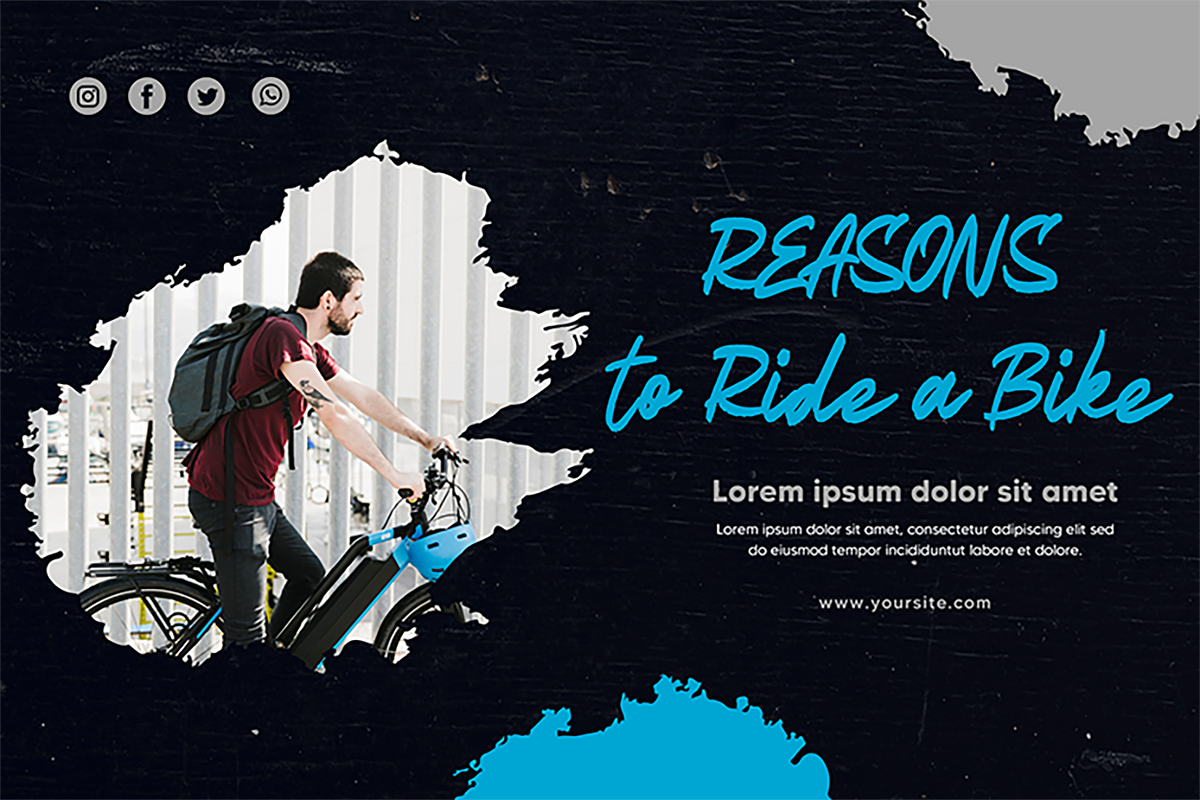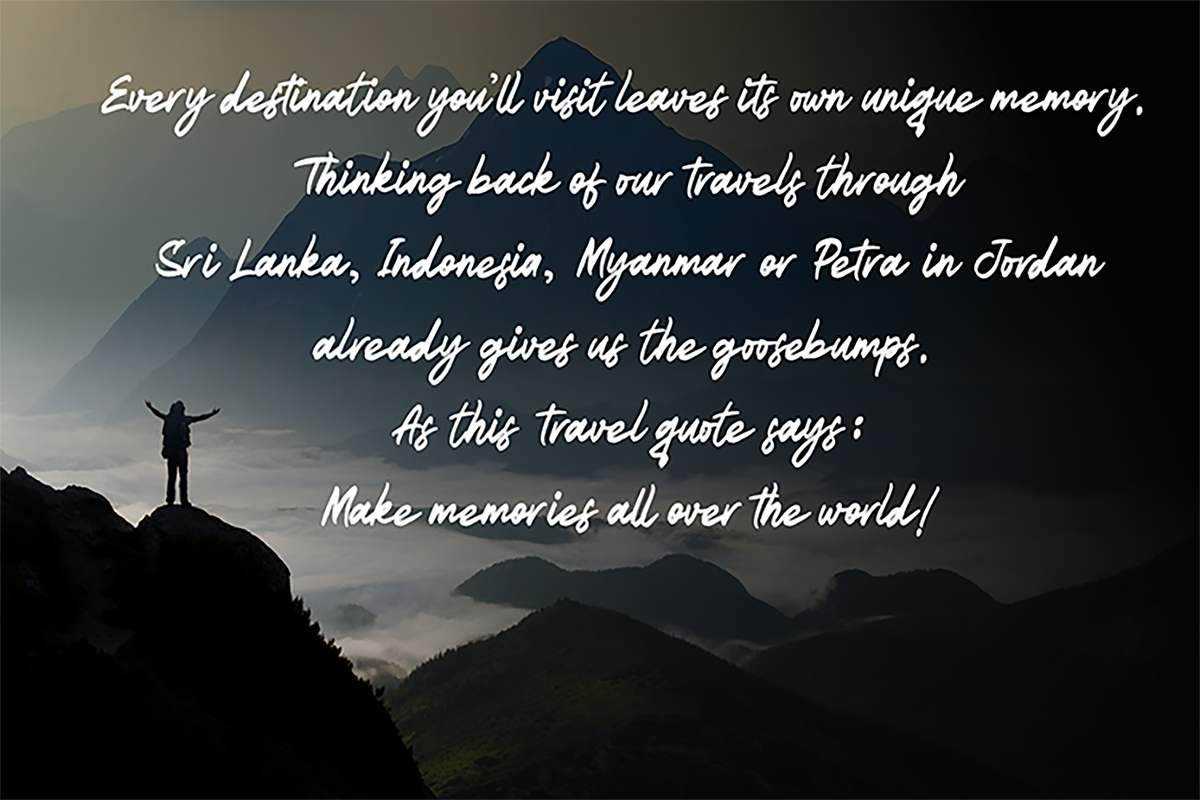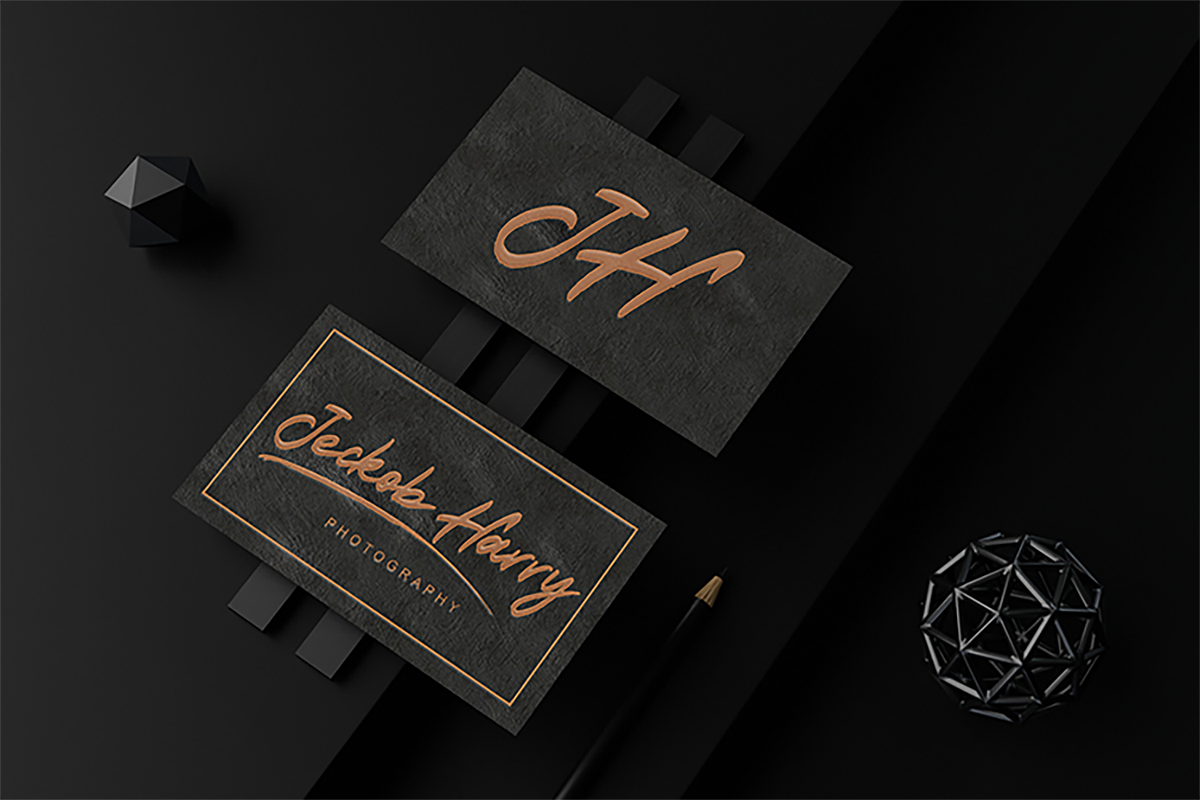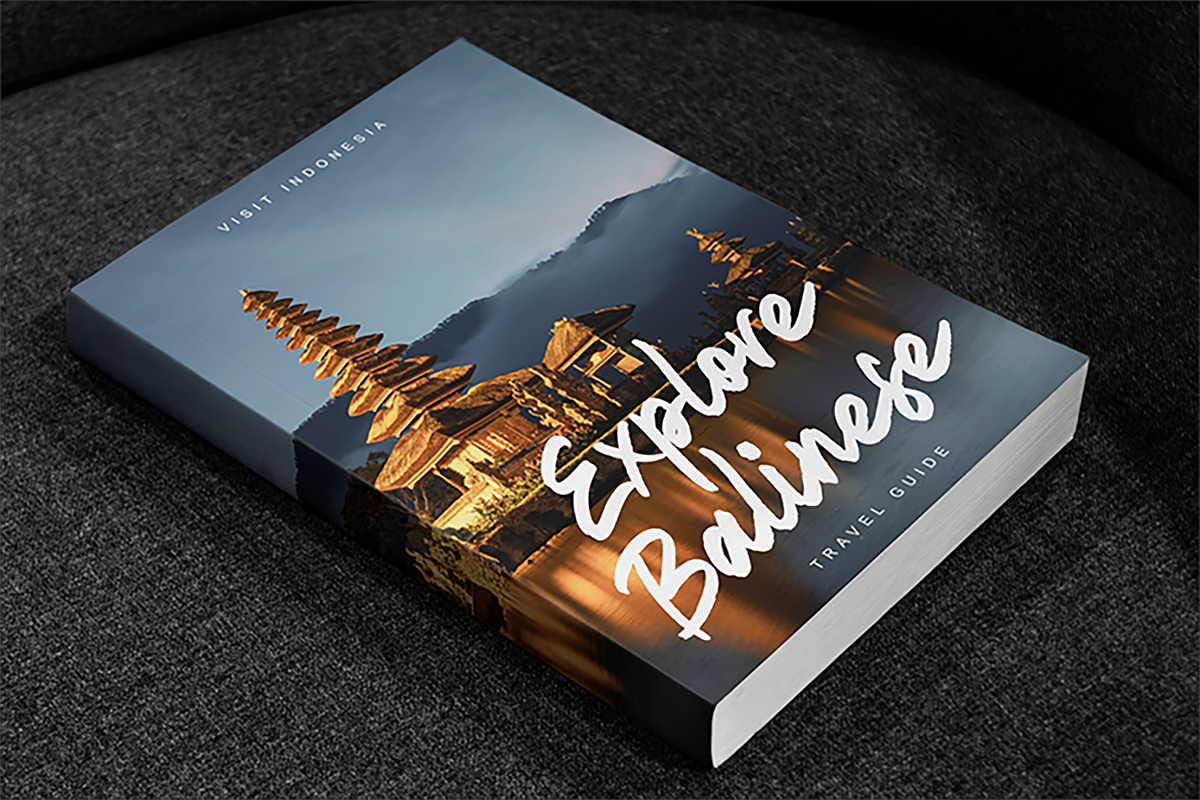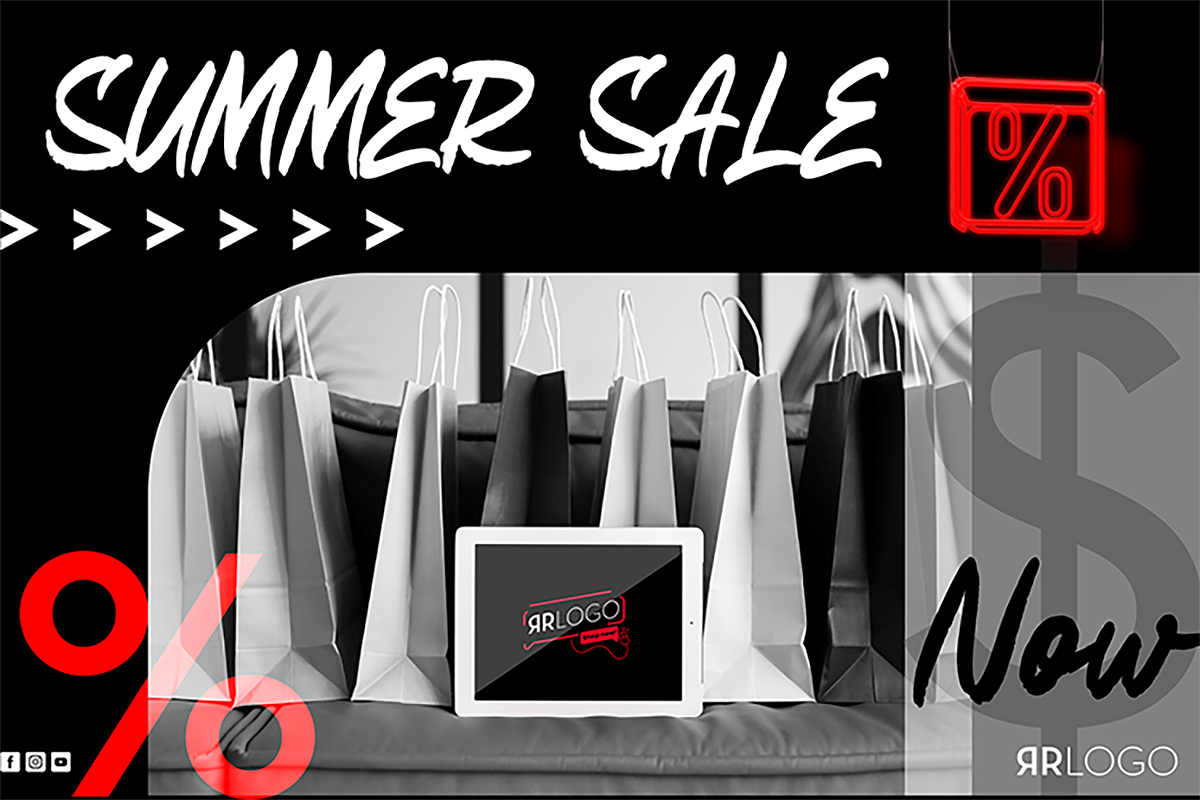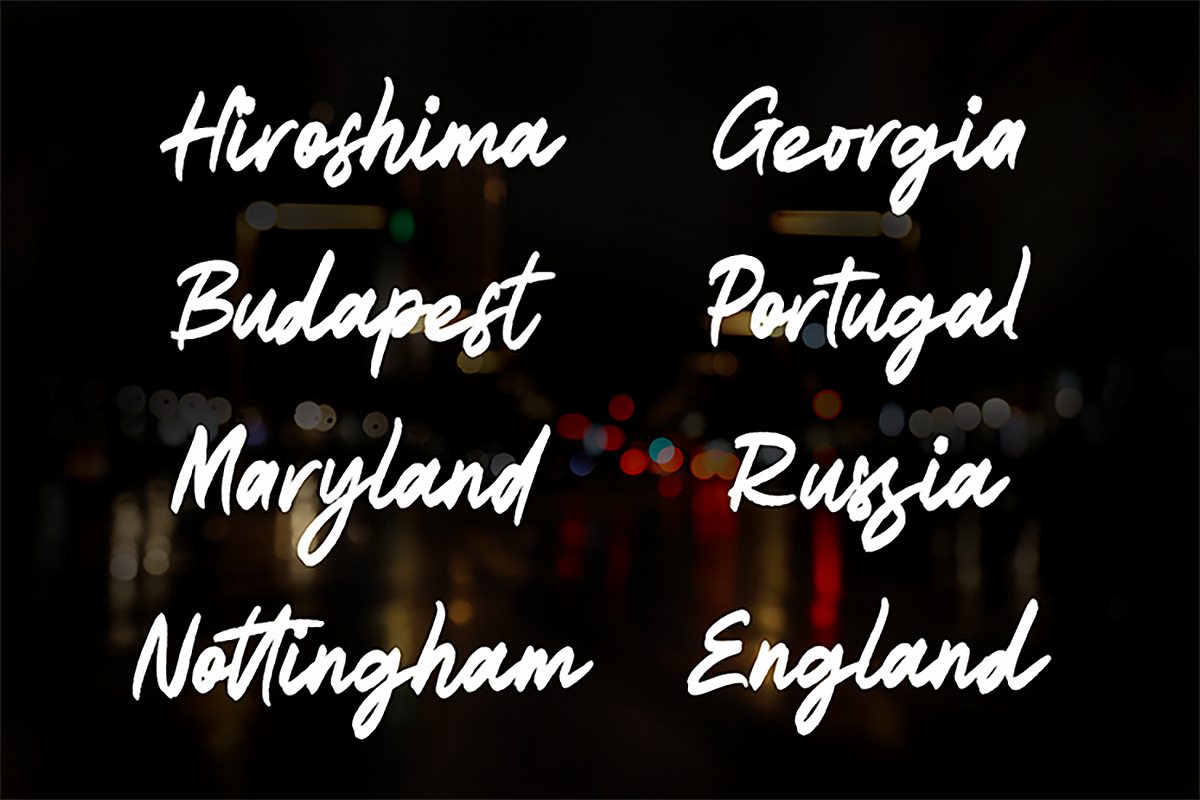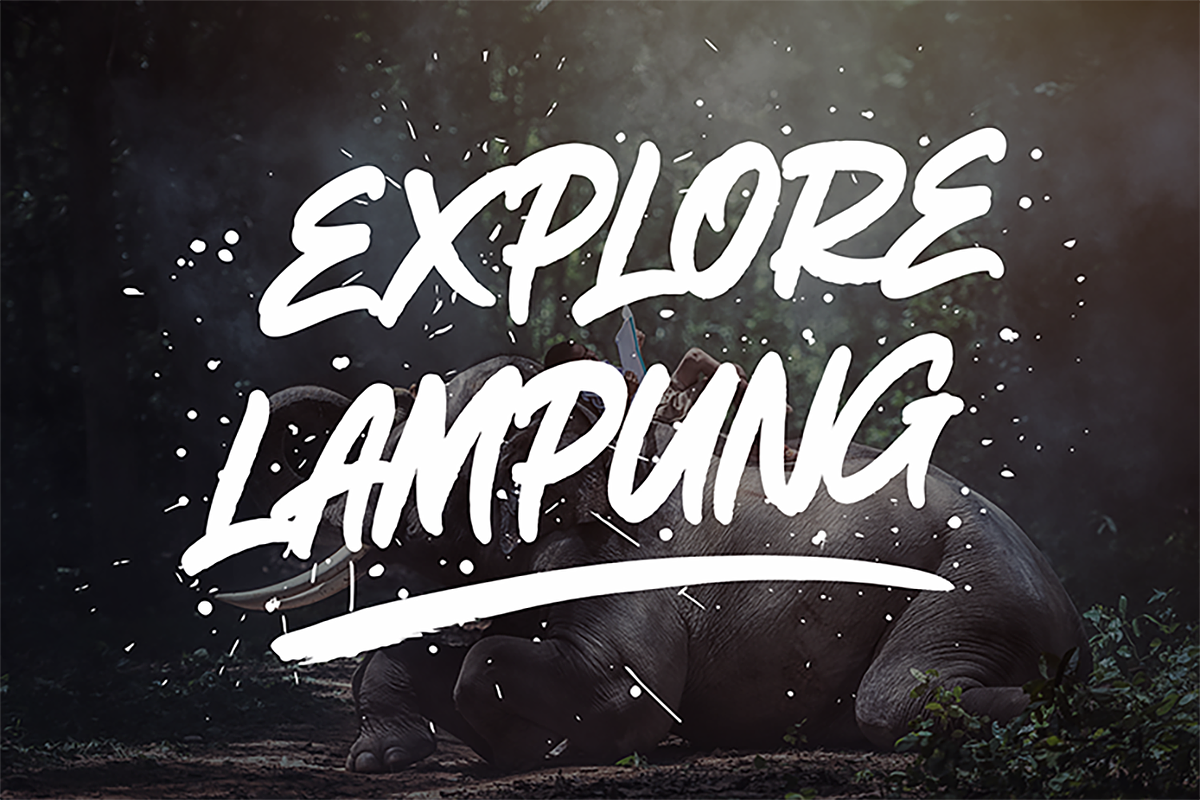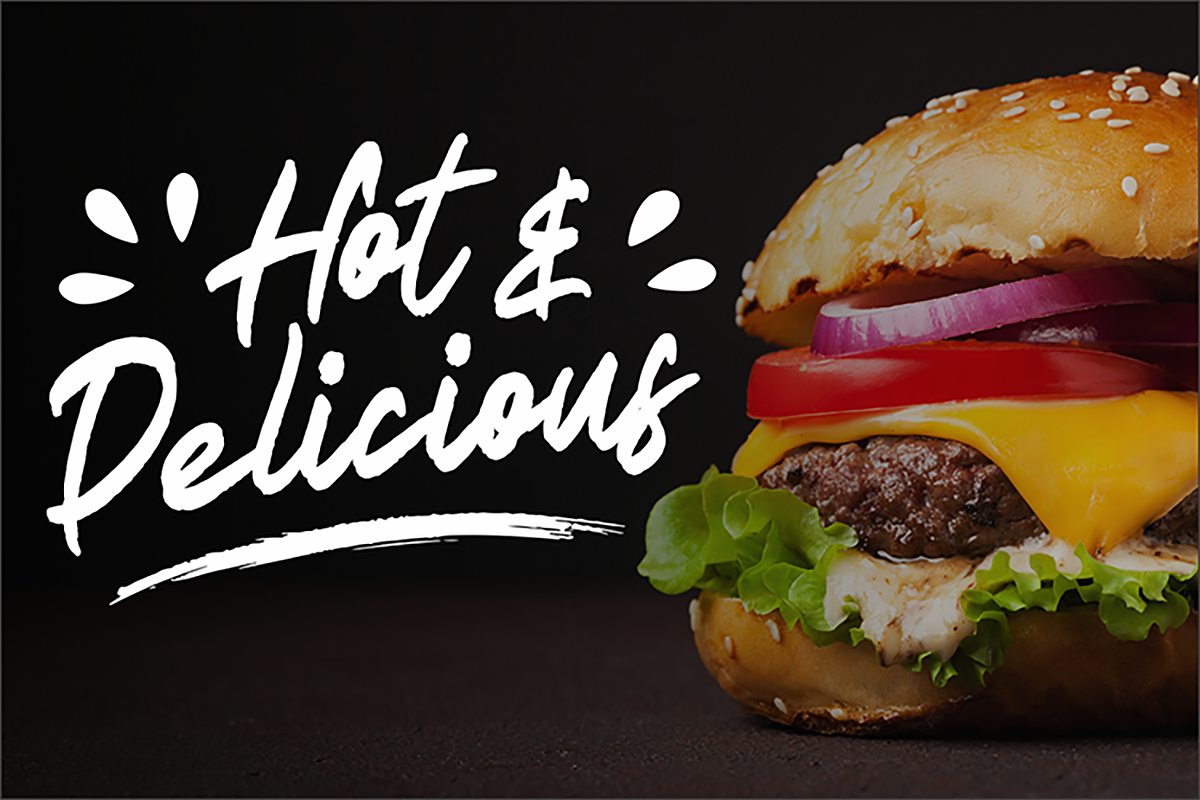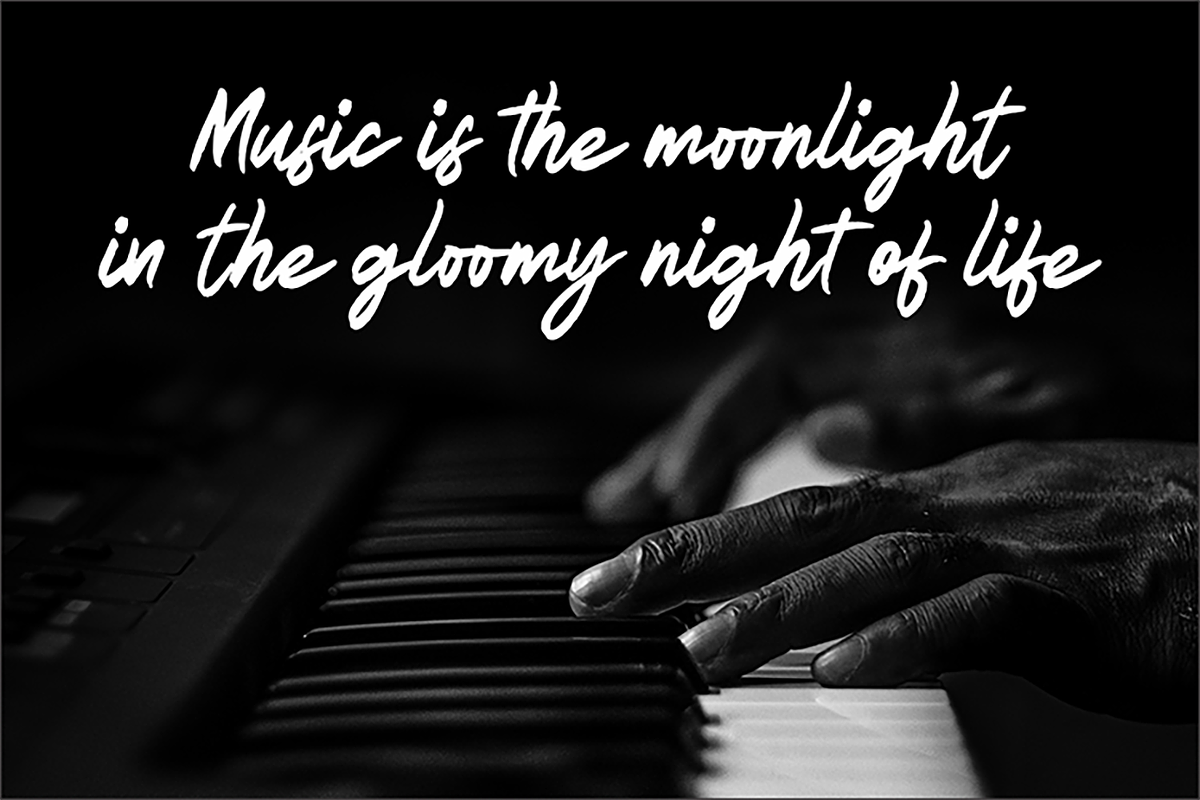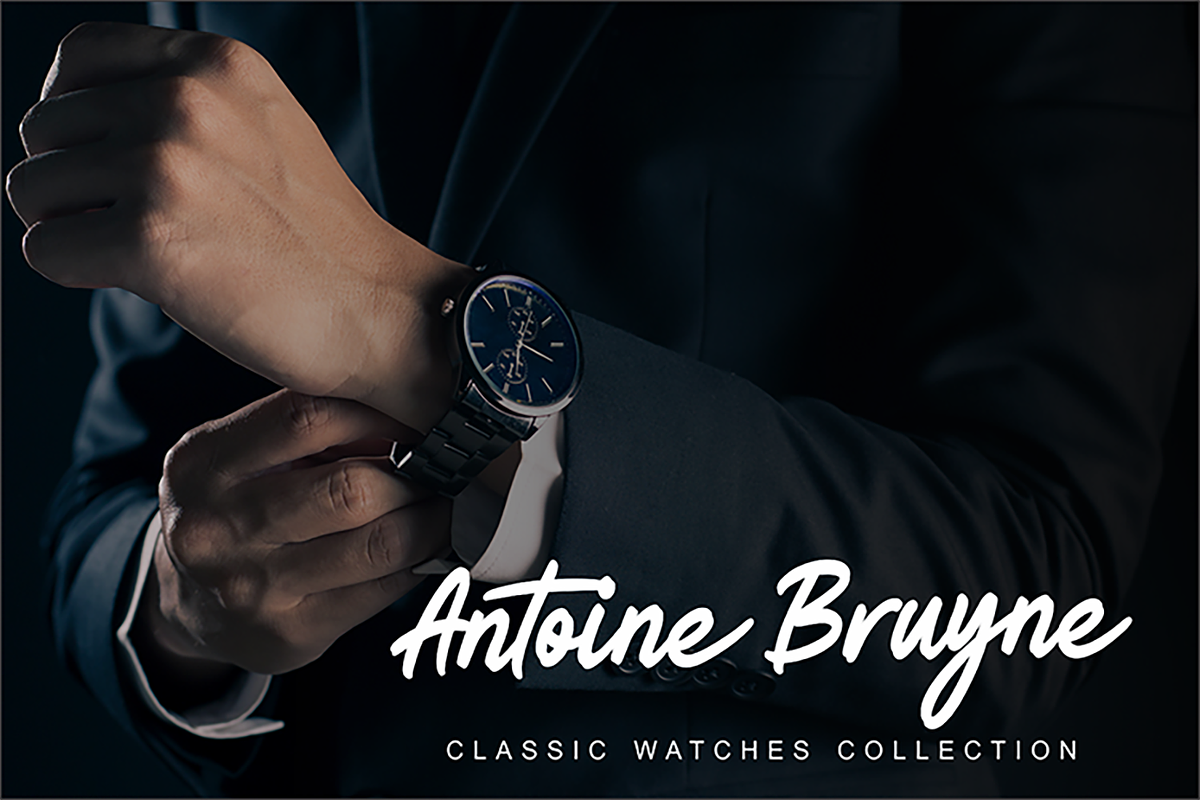
BREAKSONG
Proudly presenting BREAKSONG.
BREAKSONG is stylish marker font. It’s with two styles and alternates. BREAKSONG was designed to make logotype and lettering for your brands. And it’s would perfect for T-shirts/ Apparel, sports, music festival, quotes, special events, or anything.